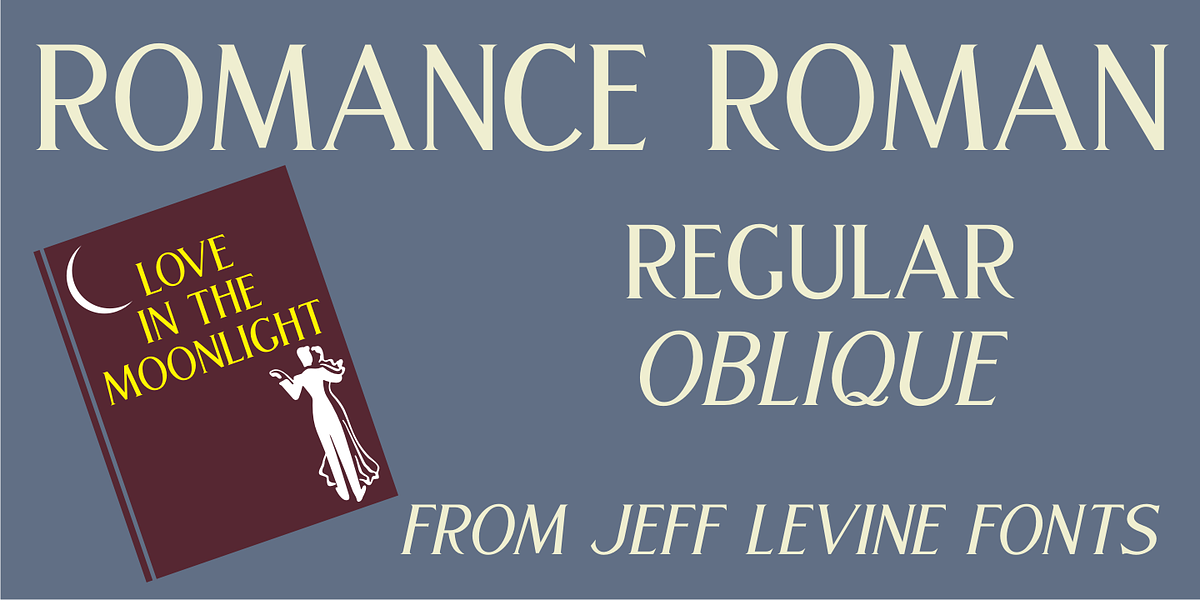
Romance Roman JNL
The antique sheet music for the 1915 song “A Girl in Your Arms is Worth Two in Your Dreams” had its title hand lettered in a Roman typeface that reflected ever so slightly the Art Nouveau influences of the time.
This design is now available as Romance Roman JNL, in both regular and oblique versions.